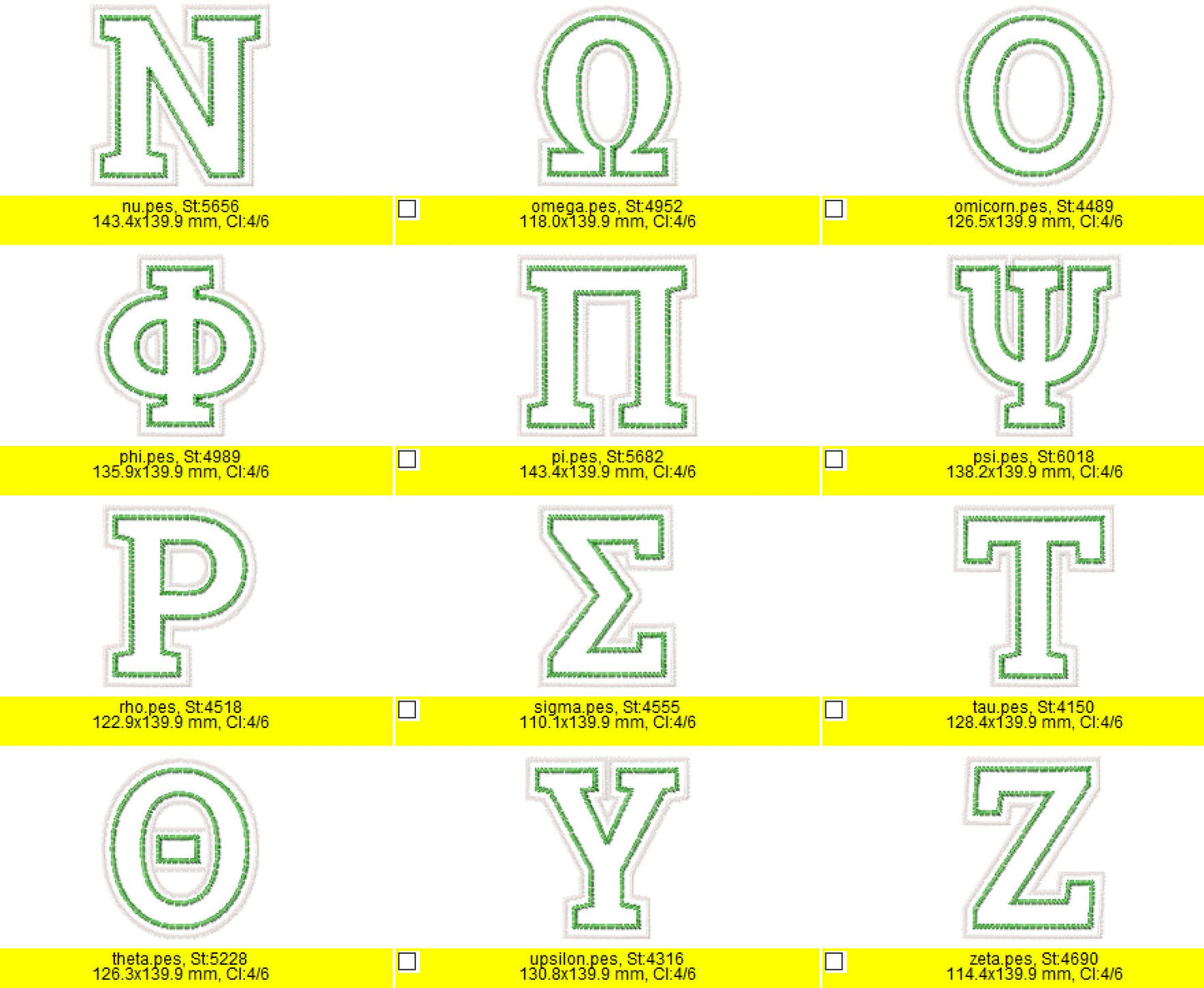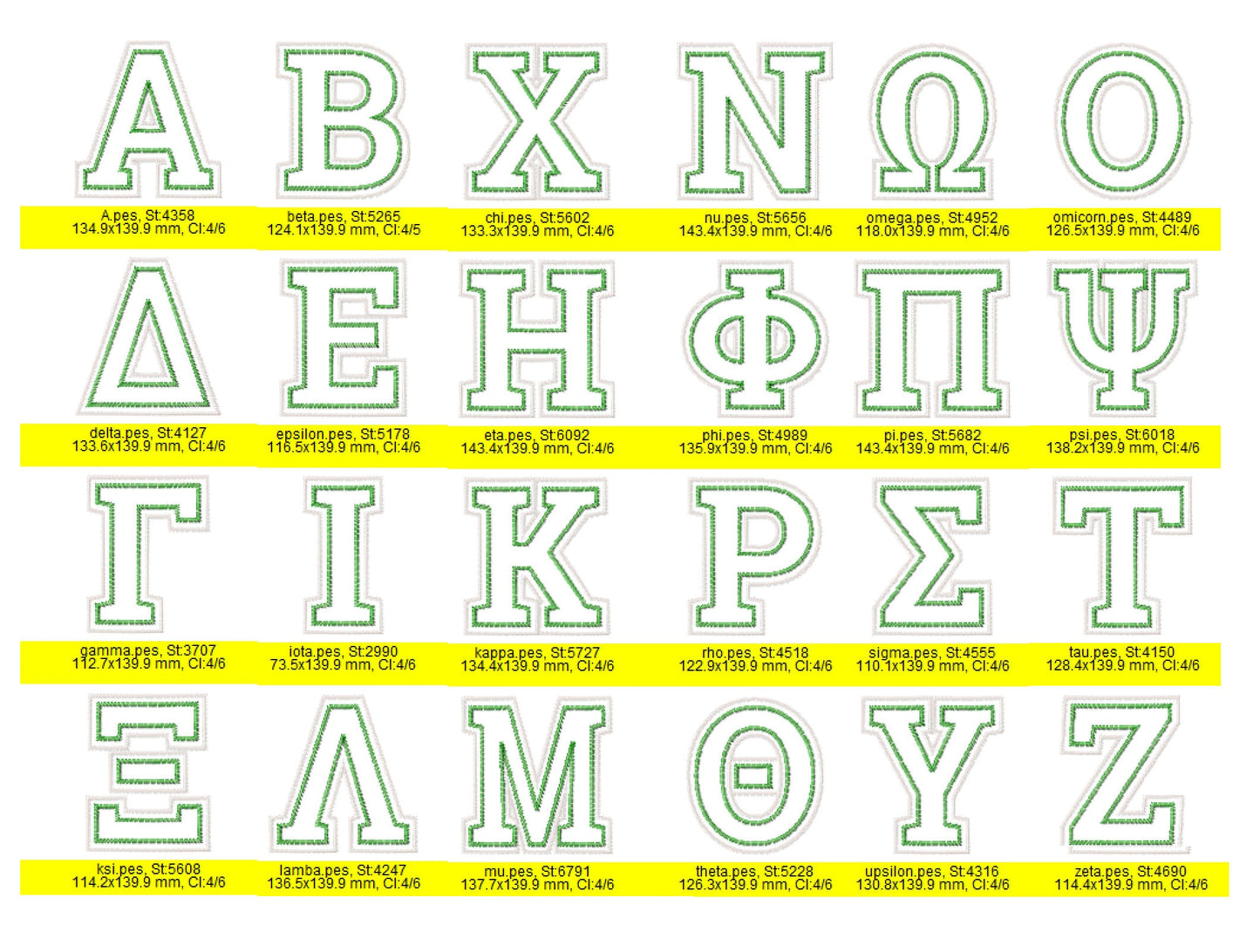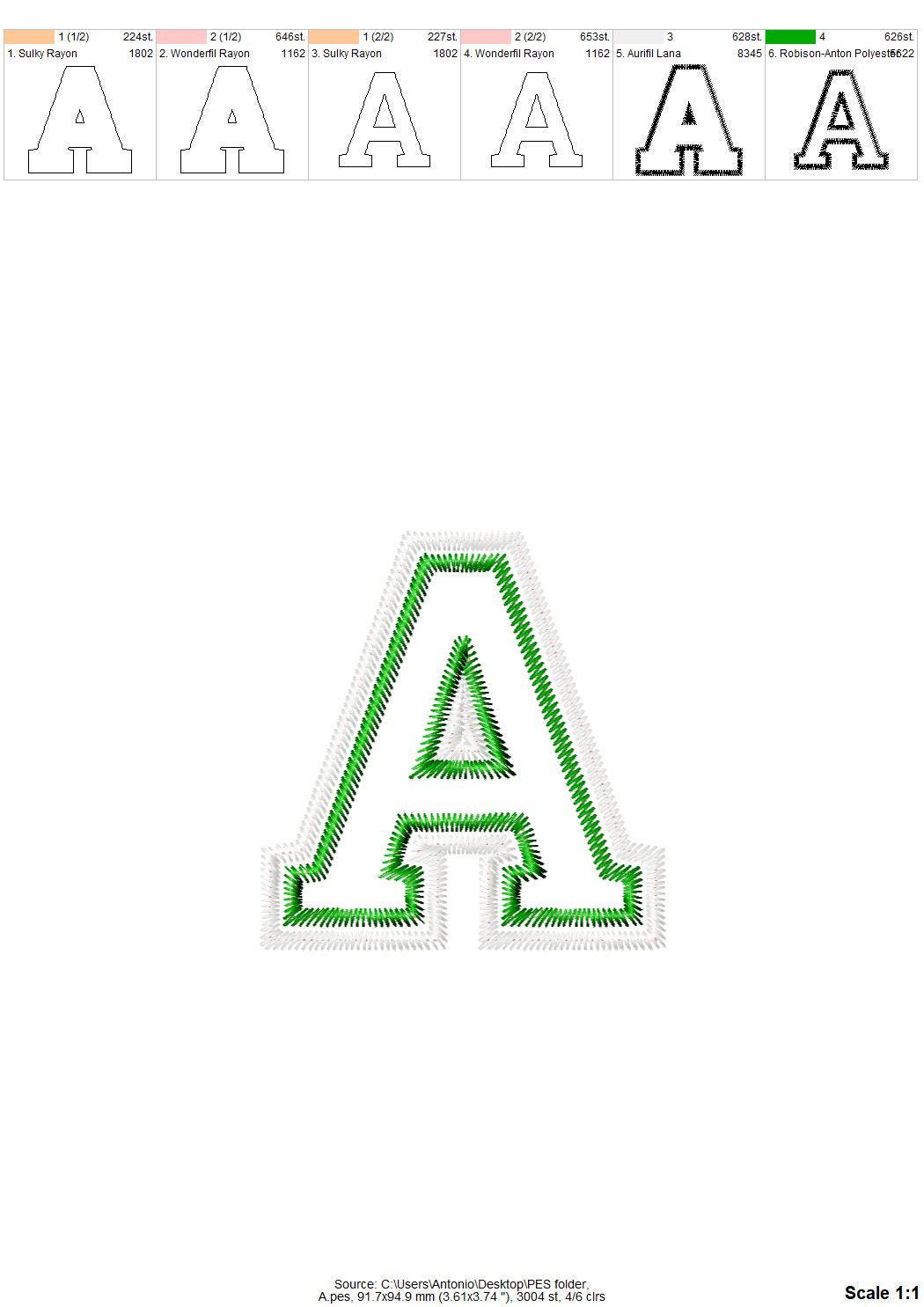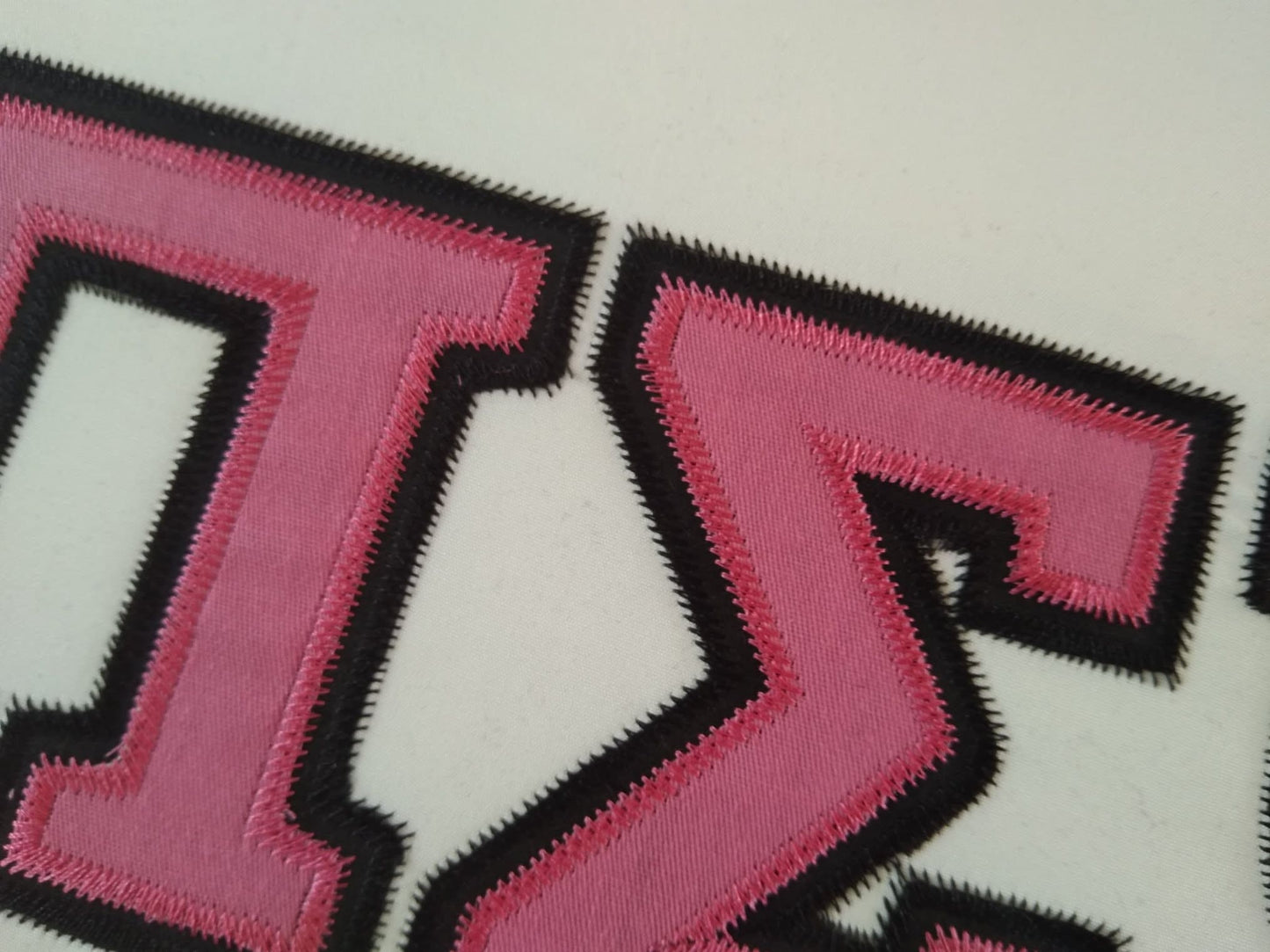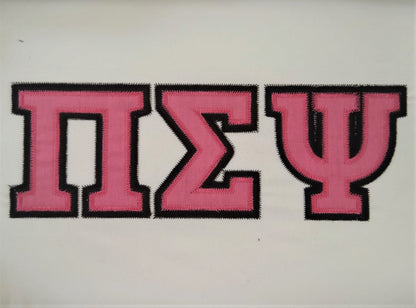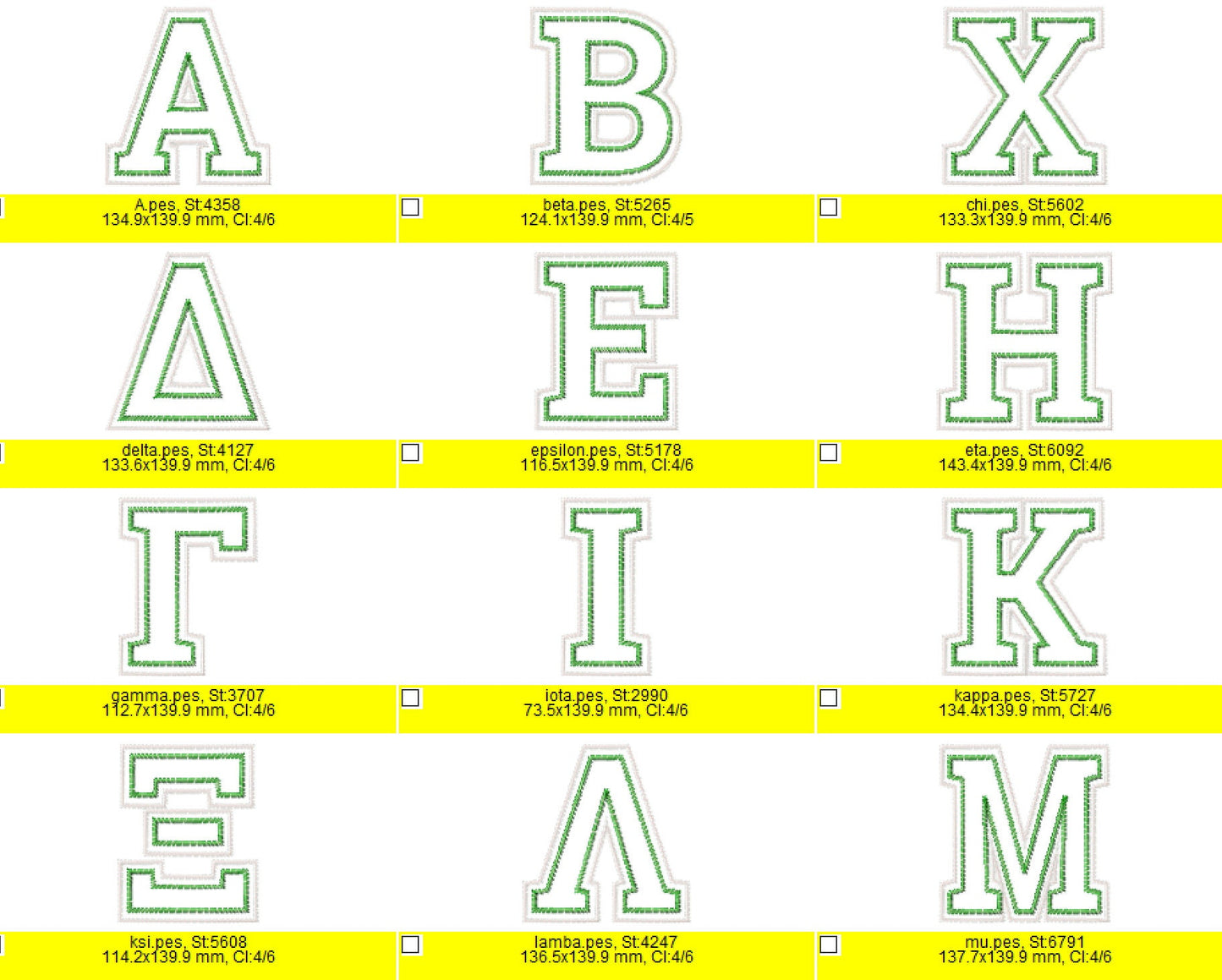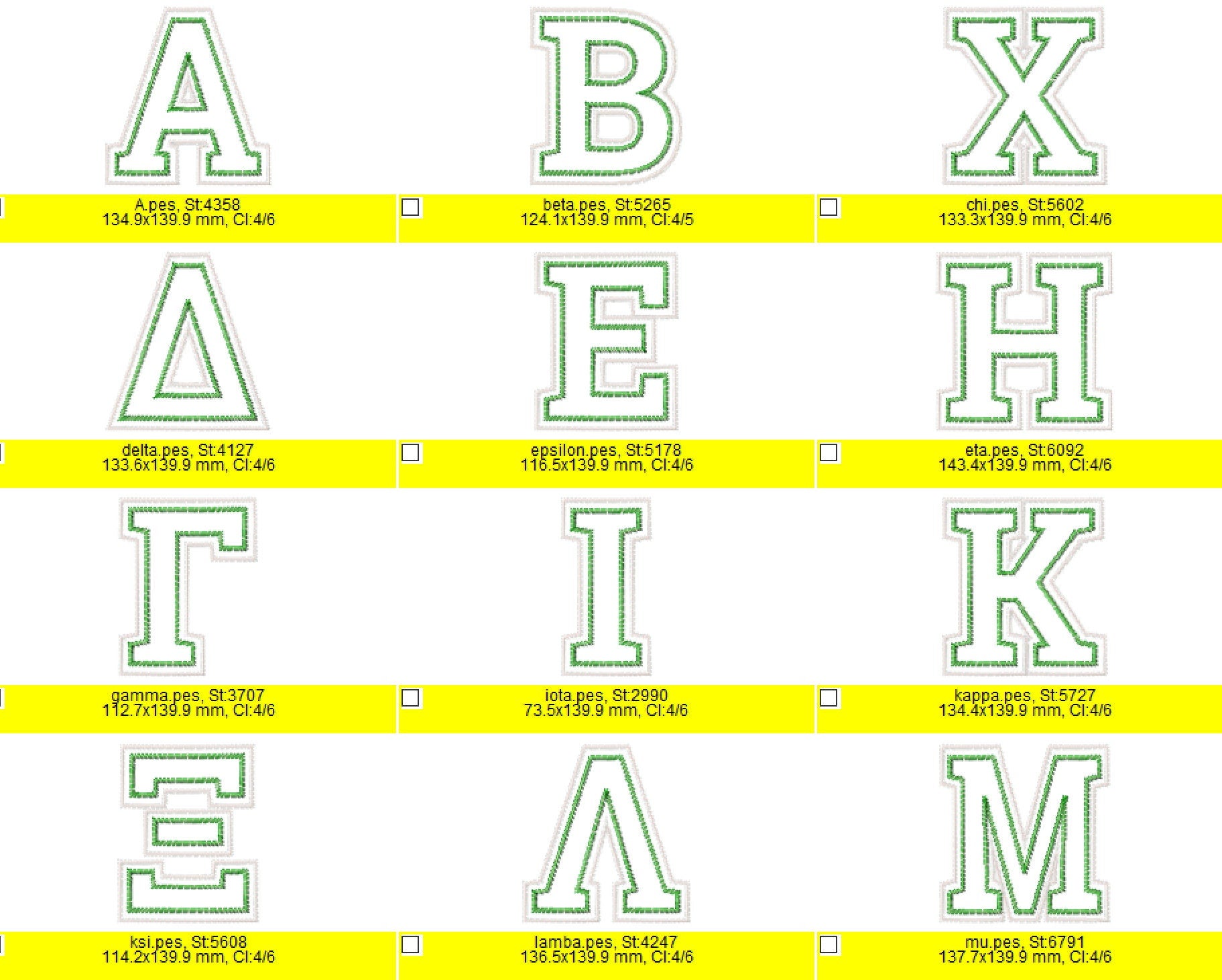
Or click to open the linkA large Greek alphabet with two applique layers and a zigzag outline, for sorority and fraternity shirts, jerseys, blankets and pillows.
All 24 Greek capital letters in six sizes: 2.4, 3.1, 3.7, 4.7, 5.5 and 6.3 inches. Each letter is a two-step applique in two colors with a zigzag edge.